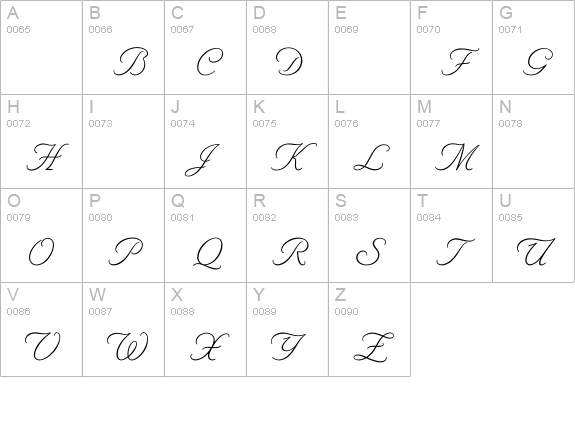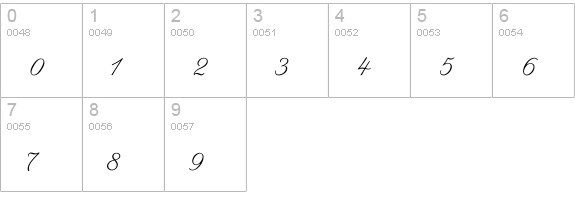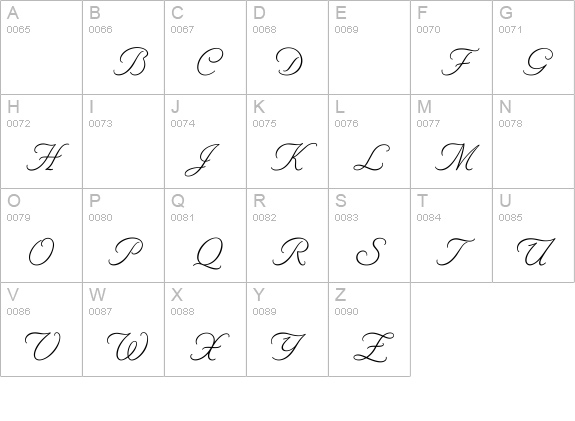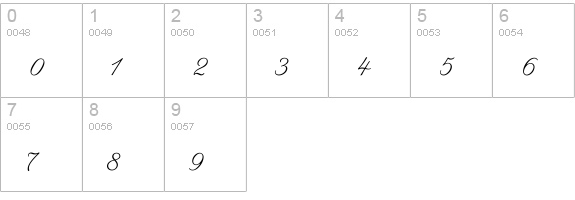
ByronLight Font Details
ByronLight is a beautifully elegant and sophisticated font that exudes a sense of grace and modernity. Its slender, yet sturdy letterforms make it perfect for a wide range of design projects, from branding to editorial design. The delicate curves and precise lines of ByronLight give it a timeless appeal that is both classic and contemporary. What makes ByronLight even more appealing is that it is available for free download at FontsMarket.com. This means that you can easily access this stunning font and incorporate it into your projects without any cost. Whether you're working on a professional design project or a personal creative endeavor, ByronLight is sure to elevate your work with its refined aesthetic and versatility.